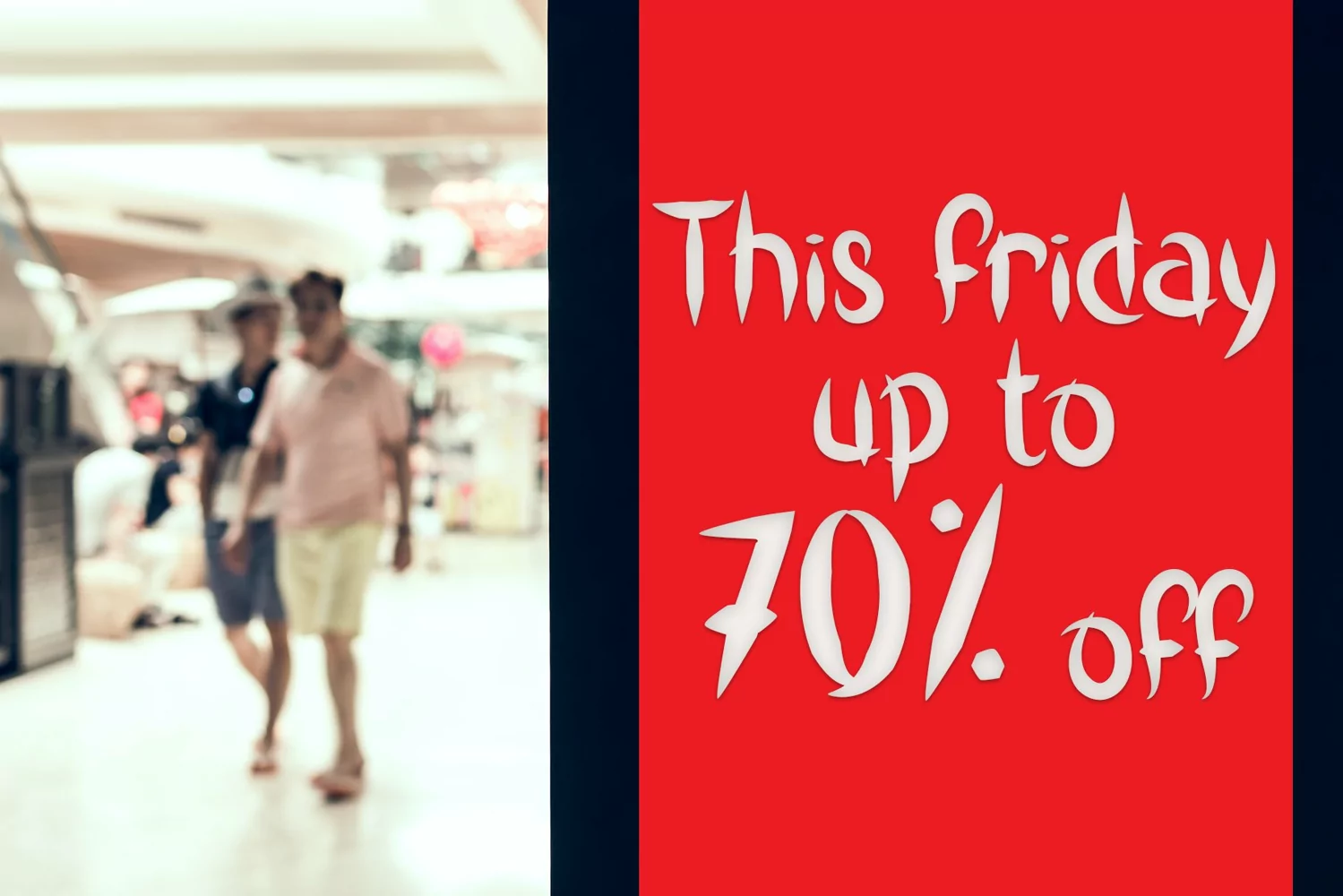
Honny Sky
Introducing, this is our newest product, we call this product Honny Sky,
It looks amazing with sweet touches and beautiful curves in each letter. Honny Sky fonts are perfect for: wedding invitations, fashion magazines, logos, signatures, photography, watermarks, wall displays, social media,